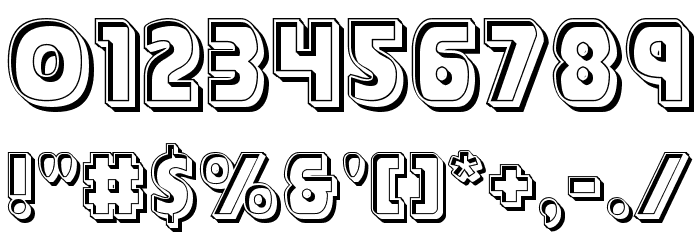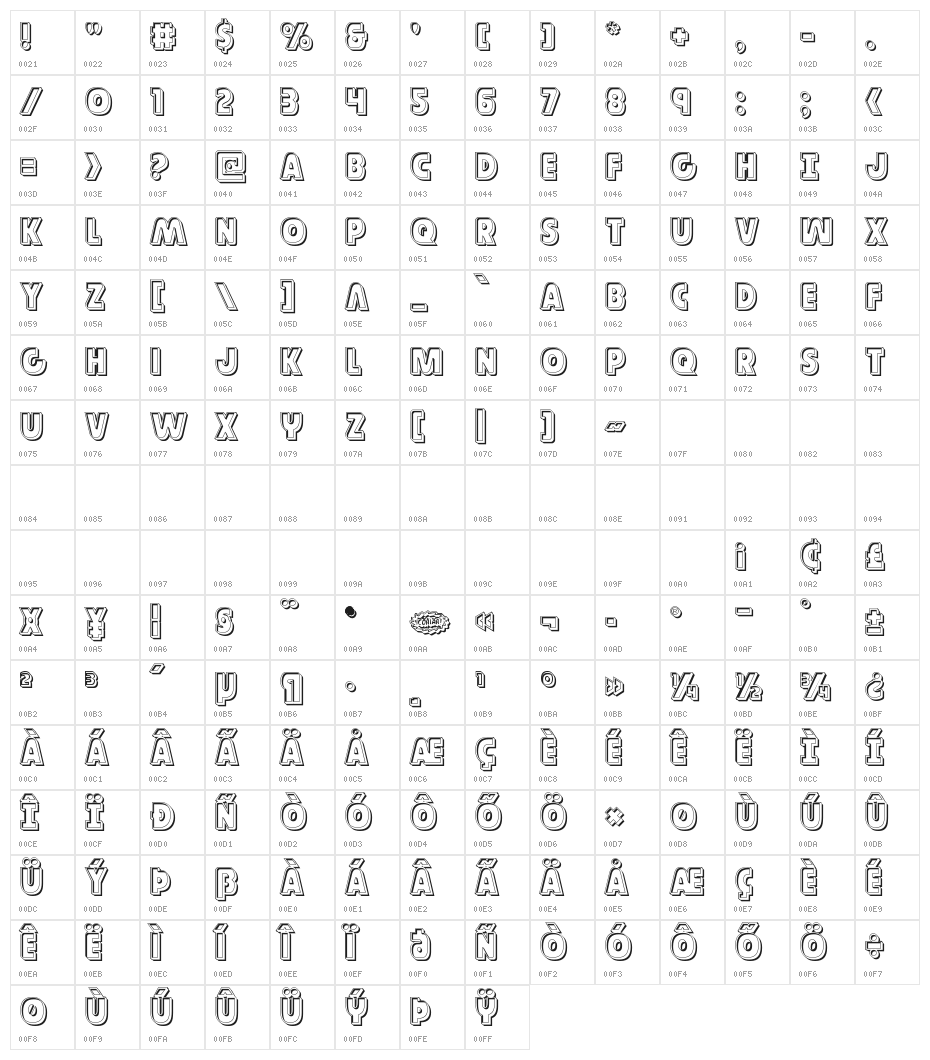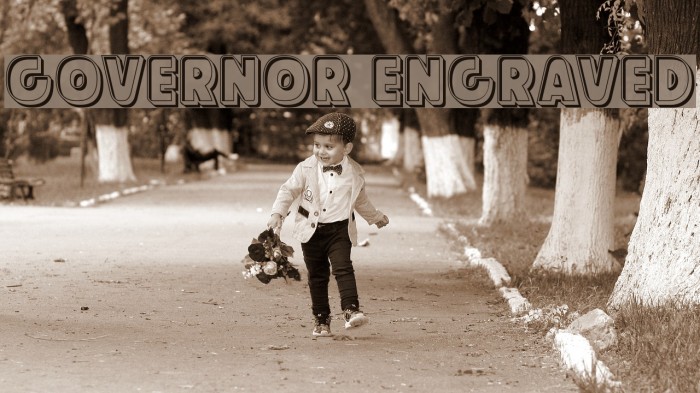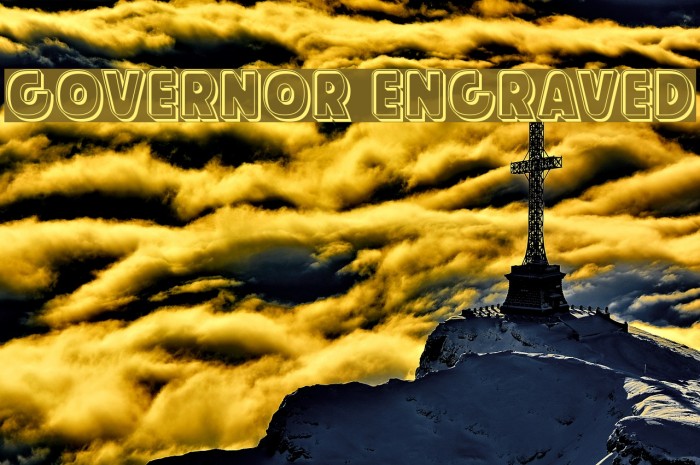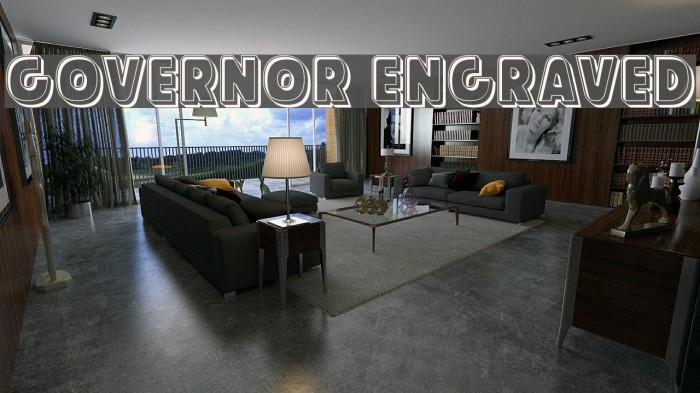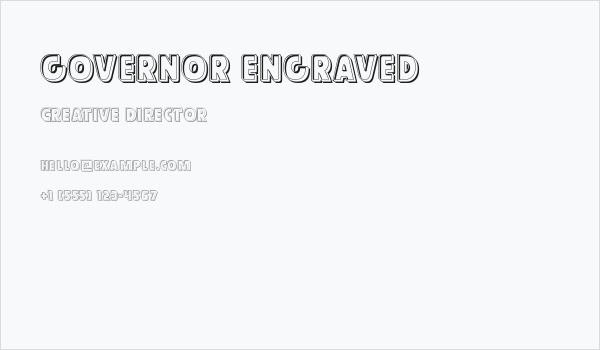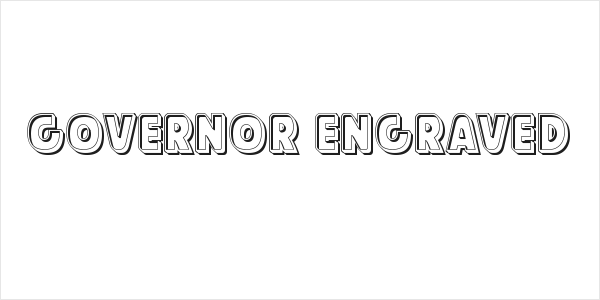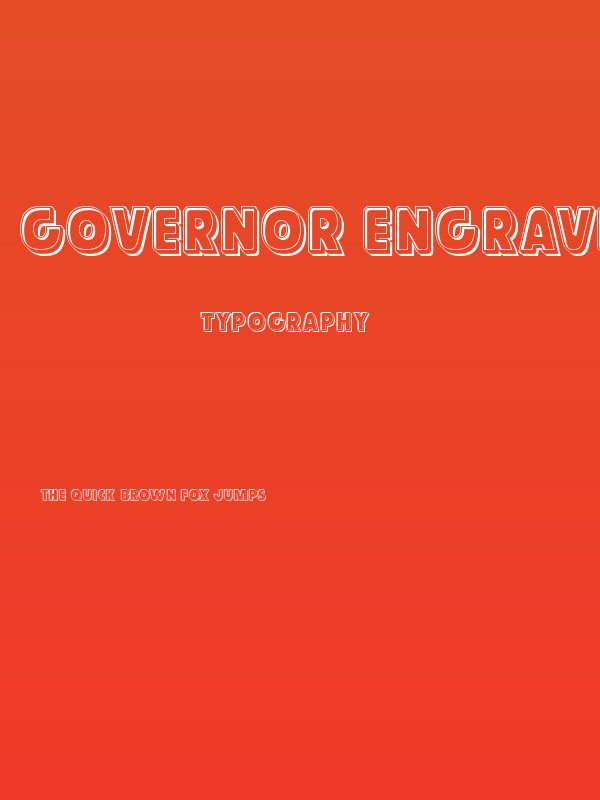
Governor Engraved Font
Governor Engraved Description
This font features a bold, three-dimensional engraved style that gives each character a striking and impactful appearance. The letters are capitalized and exhibit a strong geometric structure, with clean lines and sharp angles. The design incorporates a double outline that enhances the dimensional effect, making it ideal for creating a sense of depth and prominence. The numerals and special characters follow the same stylistic approach, ensuring consistency across all elements. This font is particularly well-suited for projects that require a bold and eye-catching display, such as posters, signage, and branding materials.
| Proposed Projects | Ideal for posters, signage, branding, and any project requiring a bold, eye-catching display. |